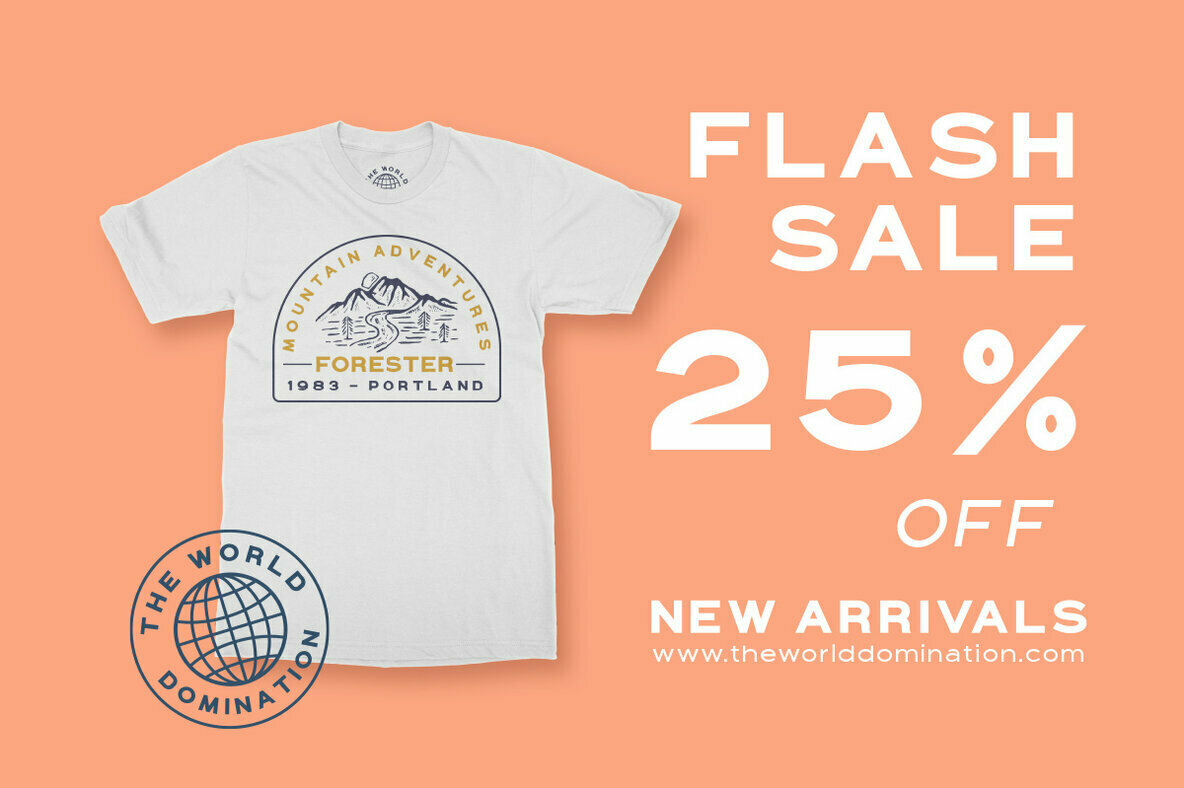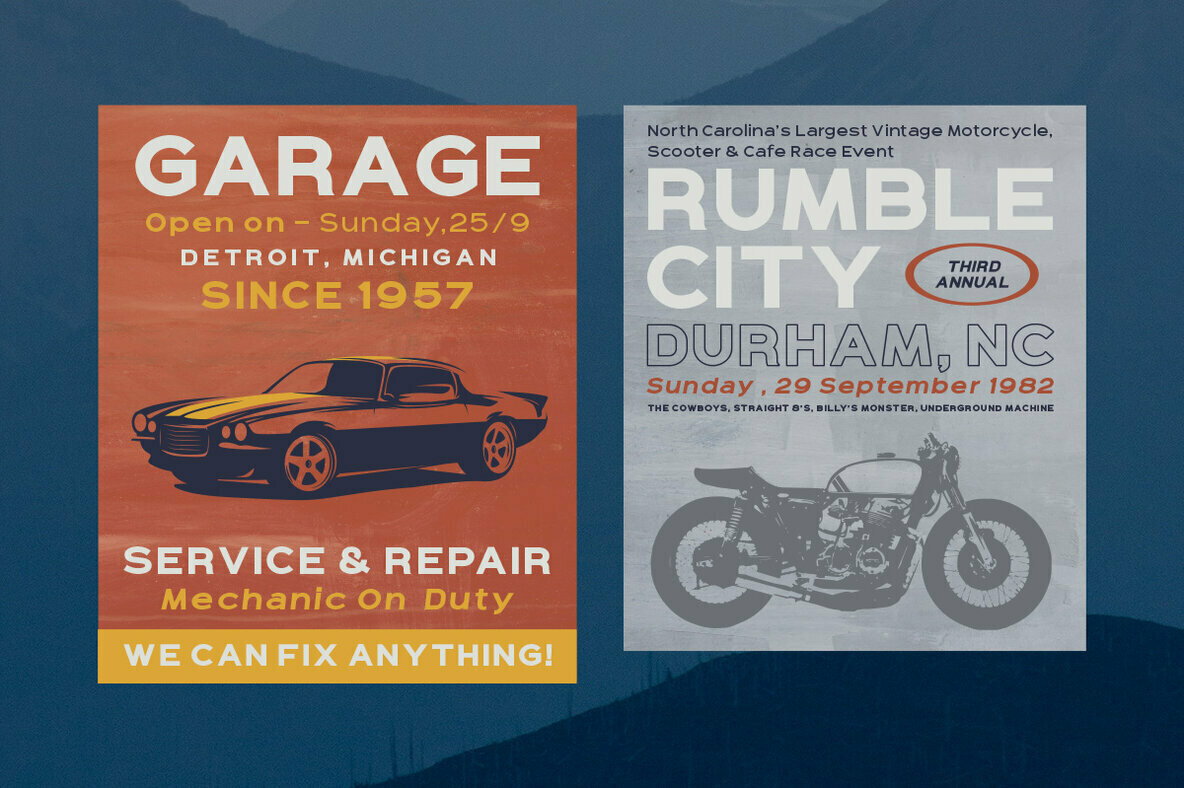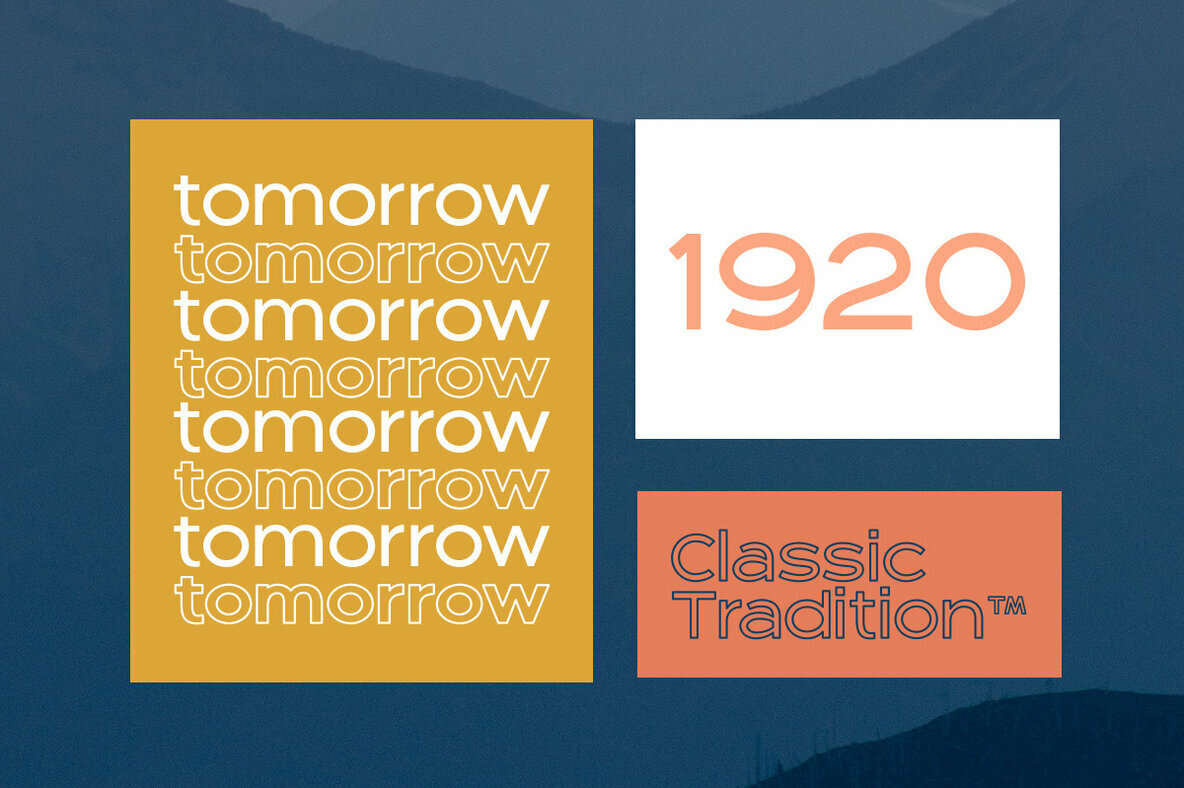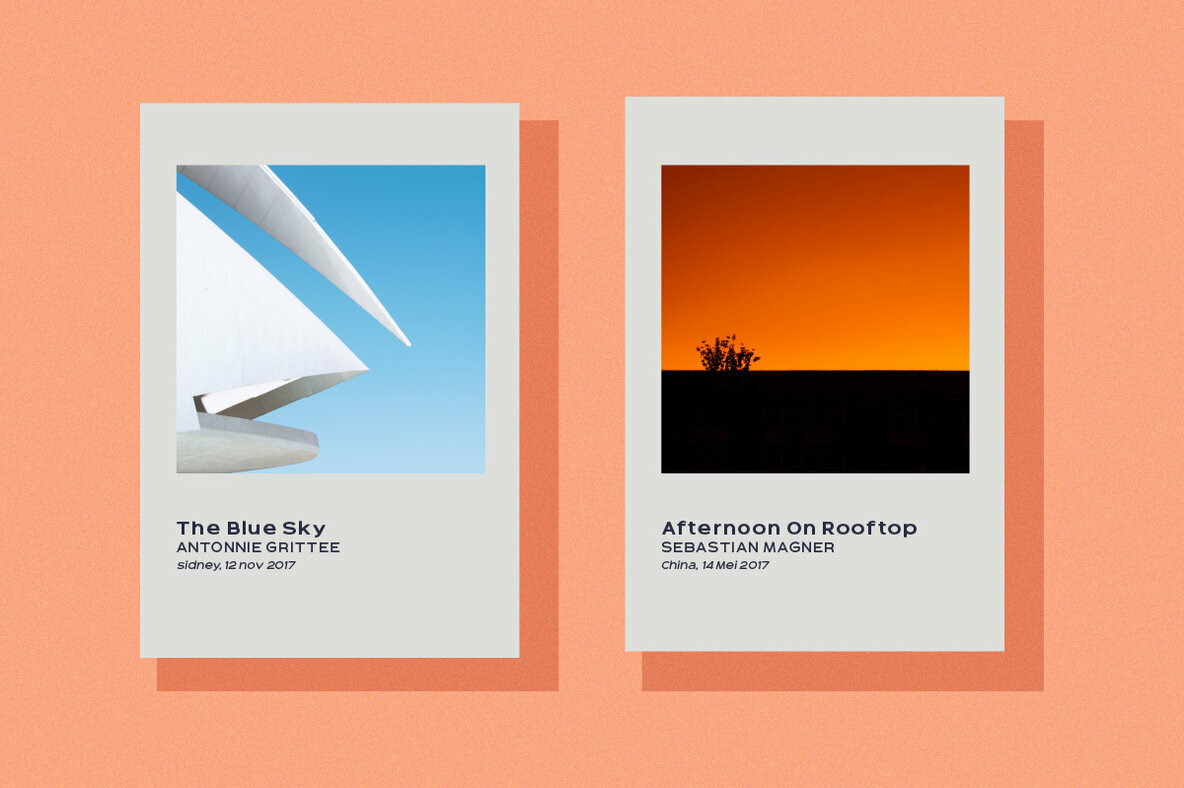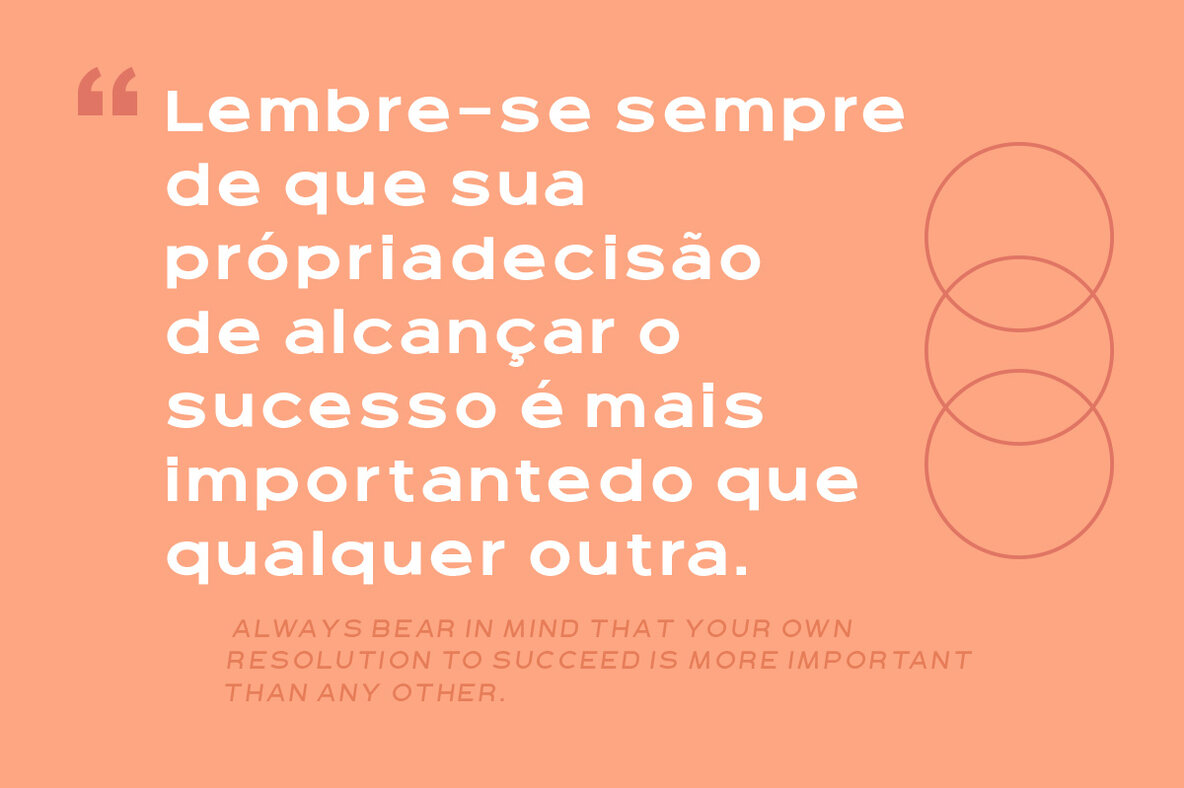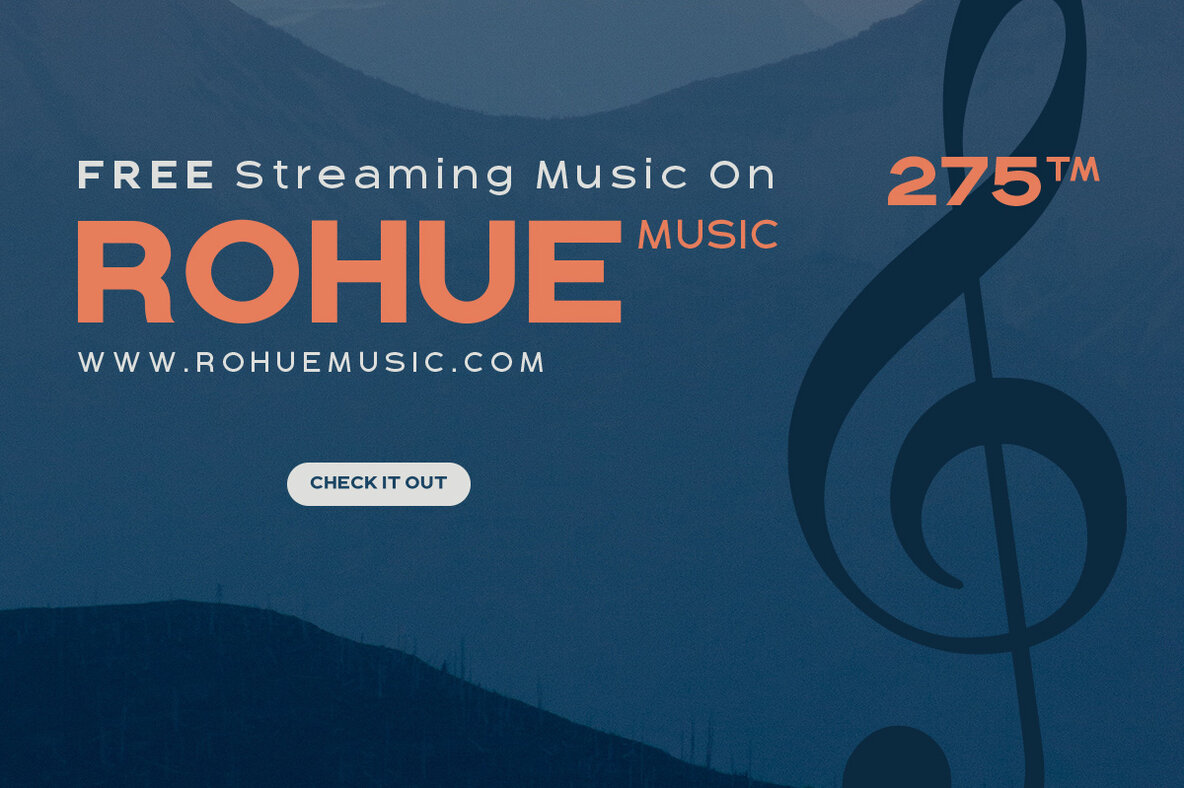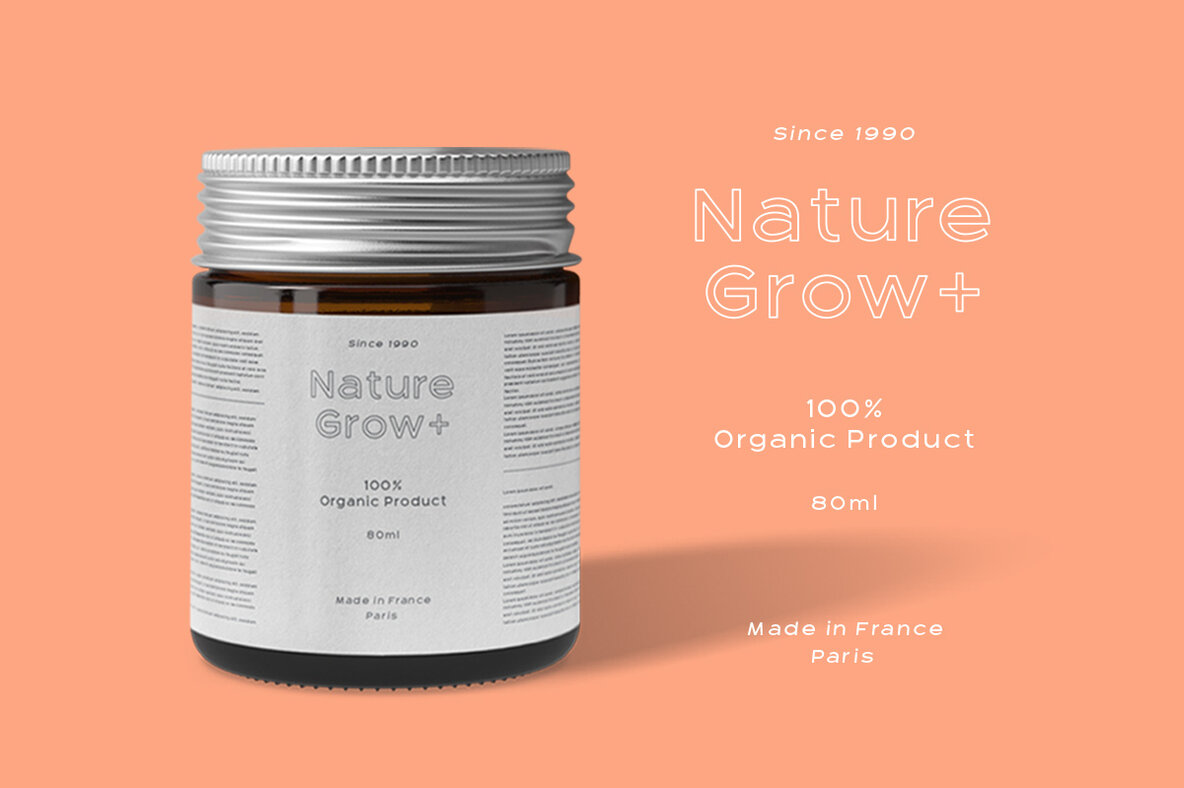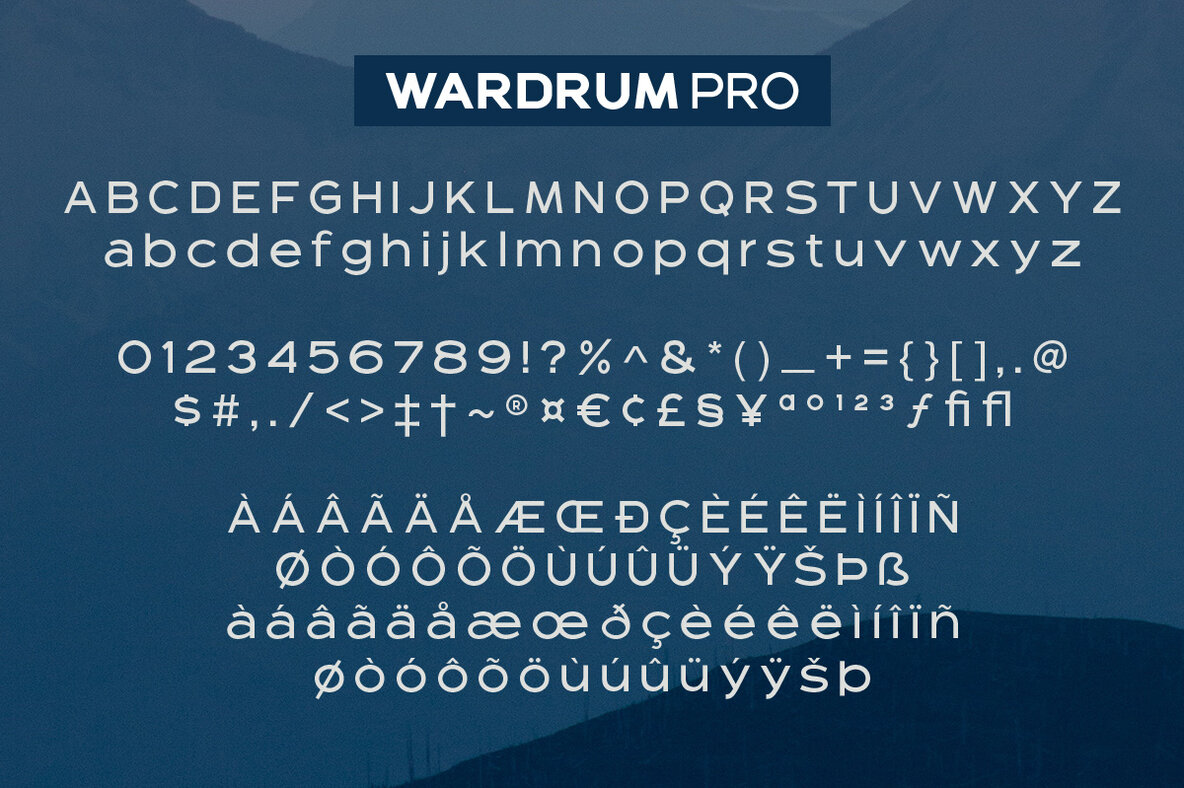
Wardrum Pro Font
Wardrum Pro is an expanded sans-serif typeface that brings bold character to your projects. Its four distinct styles allow versatility whether you're working on branding, posters, or attention-grabbing headlines. This font is designed to make a statement.Wardrum Pro: Expansive Sans Serif for Impactful Design